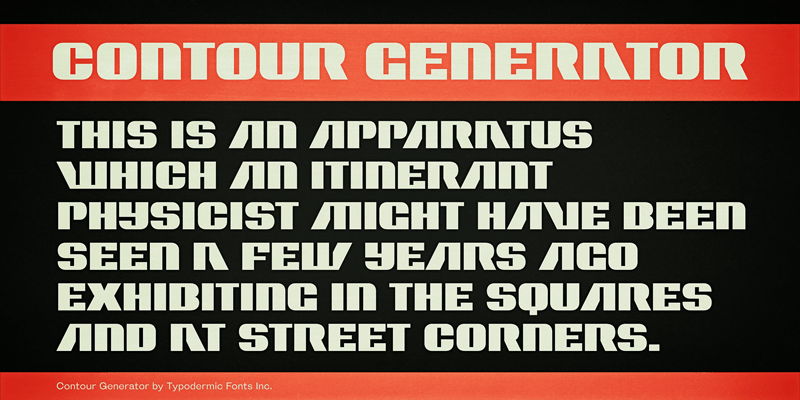
Contour Generator is a retro techno font reminiscent of 1960’s era consumer electronics. This font includes a license that allows free commercial use: sometimes referred to as a desktop license. This allows you to install the font on a computer and use it to create posters, web graphics, game graphics, t-shirts, videos, signs, logos and more. Read the license agreement for details. If you'd like to embed this font in an app, ebook, on the web or anything that's not covered by the desktop license agreement, visit the link below. You'll find distributors who offer different types of licenses or you can contact me for help. http://typodermicfonts.com/contour-generator/ |